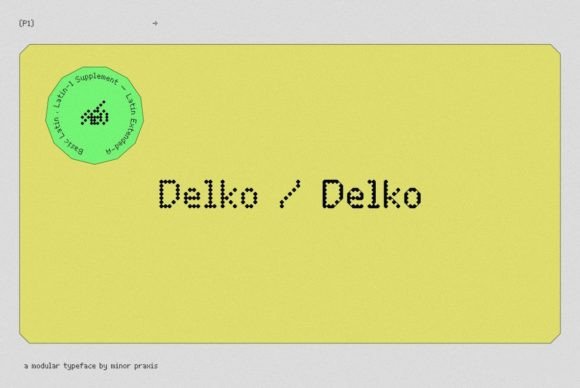
Introducing Delko Font: A Gateway to Modern Design Brilliance
In the realm of visual communication, fonts possess the power to transform ordinary words into captivating expressions. They set the tone, evoke emotions, and leave a lasting impression on your audience. Delko Font, the brainchild of minorpraxis, is not just a collection of letters; it's an artistic masterpiece designed to elevate your designs to new heights of sophistication and modernity.
Delko Font: The Epitome of Modern Aesthetics
Immerse yourself in the world of Delko Font, a sans serif typeface that exudes a refreshing aura of contemporary elegance. Inspired by the vibrant energy of scrolling banner LED displays and the clean lines of monospace fonts like OCR-A/B, Delko Font embodies the essence of modern design. Its modular structure, derived from an octagonal shape module with 45-degree sides, lends it a distinctive digital flair, perfect for captivating headlines, eye-catching posters, and impactful medium-size body copy.
Delko Font: A Versatile Workhorse for the Creative Mind
With Delko Font in your creative arsenal, versatility knows no bounds. Whether you're a seasoned designer crafting logos that demand attention or a budding entrepreneur seeking to make a statement with your branding, Delko Font is your trusted companion. Its unique character set, comprising uppercase and lowercase letters, numerals, and a diverse range of punctuation marks, ensures seamless integration into your design projects.
Delko Font: A Symphony of Style and Functionality
Delko Font effortlessly strikes a harmonious balance between aesthetics and functionality. Its clean lines and sharp angles create a striking visual impact, while its carefully crafted letterforms ensure optimal readability. Whether you're designing for print or digital media, Delko Font guarantees a captivating presence that commands attention and leaves a lasting impression.